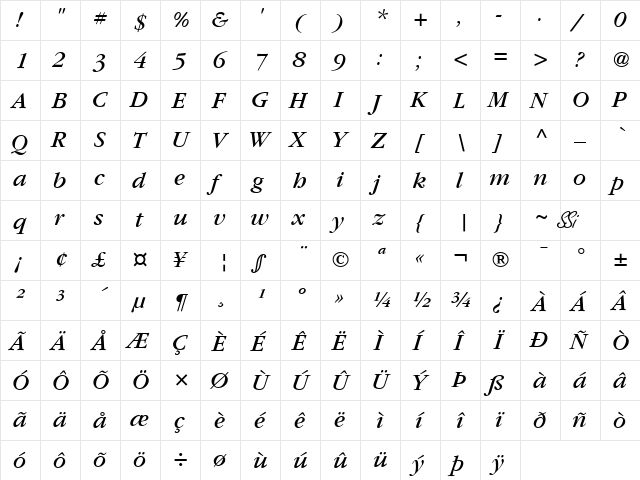
Garamond Book SSi Book Italic Font Preview
Garamond Book SSi Book Italic
Garamond Book SSi Book Italic Font Details
| Style | Book Italic |
Design Context for Garamond Book SSi Typeface
Garamond Book SSi is a composed and adaptable typeface that performs quietly and consistently across a wide range of design contexts. Its italic angle brings a sense of urgency and motion to the letterforms.
Pro Tip: Use Garamond Book SSi for emphasis, pull quotes, and subheadings where its slanted energy can add rhythm to the layout.